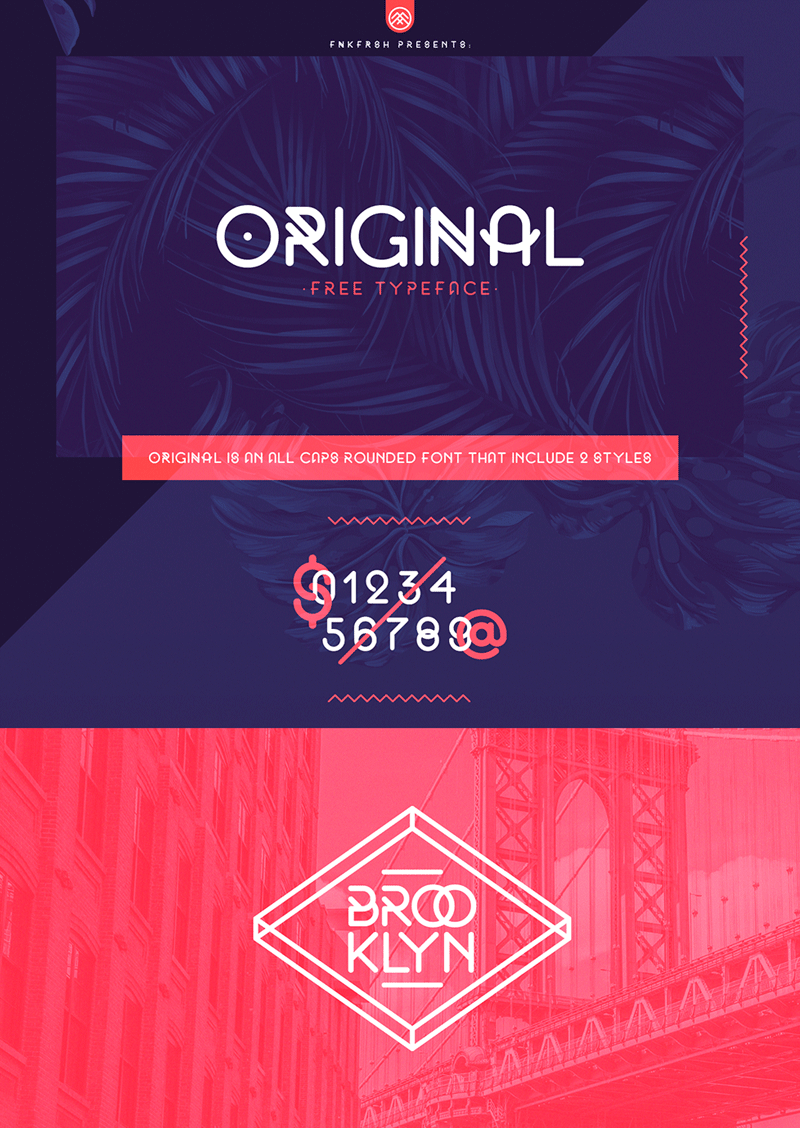
Original is an all caps rounded font that include 2 styles. Original is completely free for personal use. For commercial linceses, email me at : me[at]fnkfrsh.be Enjoy! :) |